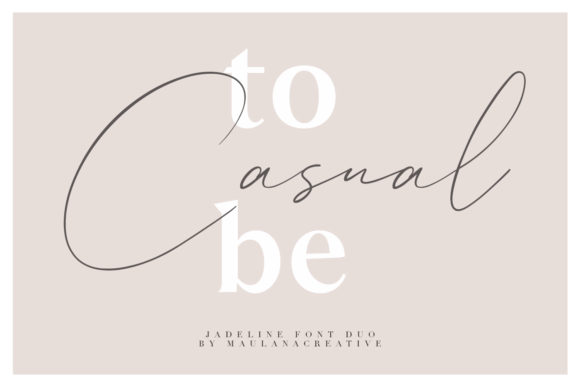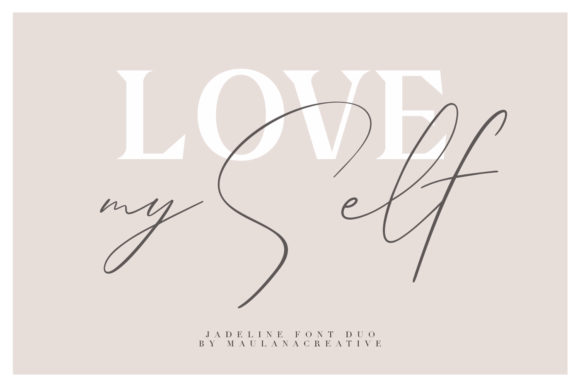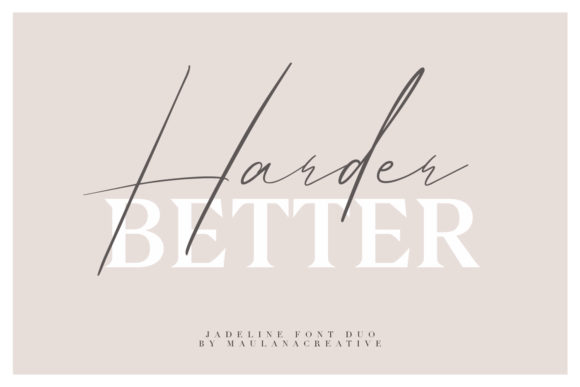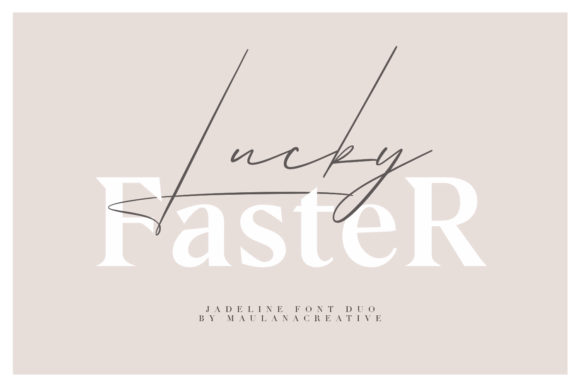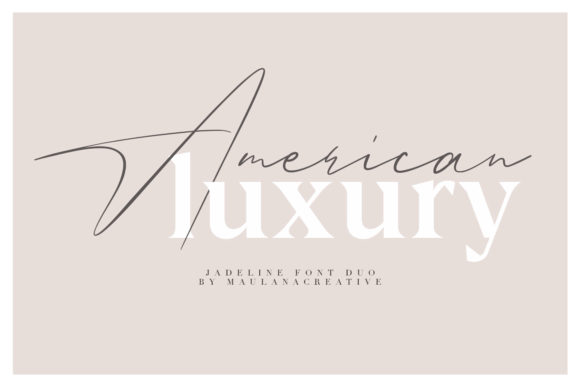
Unleash Your Creativity with Jadeline Script Font
Have you ever been working on a design project and suddenly, a burst of inspiration strikes? The words flow effortlessly, and the entire concept comes together in a beautiful, cohesive piece. It’s moments like these that make design truly magical. And, what if you had the perfect tool to help bring those ideas to life?
Enter Jadeline Script Font – a stunning, bold handwritten font duo that adds a light, airy feel to any design project. This versatile font is perfect for creating eye-catching headings, elegant quotes, and even playful titles. With Jadeline Script Font, you can elevate your designs and make them truly stand out from the crowd.
As a designer, you understand the importance of having the right tools at your fingertips. Jadeline Script Font is a valuable addition to any design arsenal, offering endless possibilities for creative expression and experimentation.
Jadeline Script Font Key Features
- Font Family: Jadeline Script
- Unique Characteristics: Elegant, cursive script with a touch of whimsy and romance; perfect for wedding invitations, greeting cards, and other special occasions.
Jadeline Script Font Review
I recently had the chance to work with Jadeline Script Font, and I must say it’s a unique and charming addition to any design project. Here are some of its standout features ✨:
- Beautifully crafted script lettering that adds a touch of elegance to any text.
- Perfect for creating invitations, wedding stationery, or any other project that requires a touch of sophistication.
- Available in a range of weights and styles, making it easy to customize to fit your design needs.
- Works well with a variety of design elements, from classic to modern.
However, there are a few limitations to keep in mind ⚠️:
- May not be suitable for projects that require a lot of text, as it can be a bit slow to read.
- Can be a bit tricky to work with at small font sizes.
- Not ideal for projects that require a lot of bold or italic text.
Overall, I think Jadeline Script Font is a great choice for designers who want to add a touch of personality and whimsy to their projects. It’s a bit quirky, but in a charming way. With a little practice and patience, I think you’ll find it to be a valuable addition to your design toolkit.
Tips for Getting the Most Out of Jadeline Script Font
Use Jadeline Script Font for titles, headings, and quotes to add a touch of elegance and sophistication to your designs. Experiment with different font sizes and colors to create a visually appealing effect.
Jadeline Script Font is ideal for:
- Brand logos and marketing materials.
- Editorials and publications.